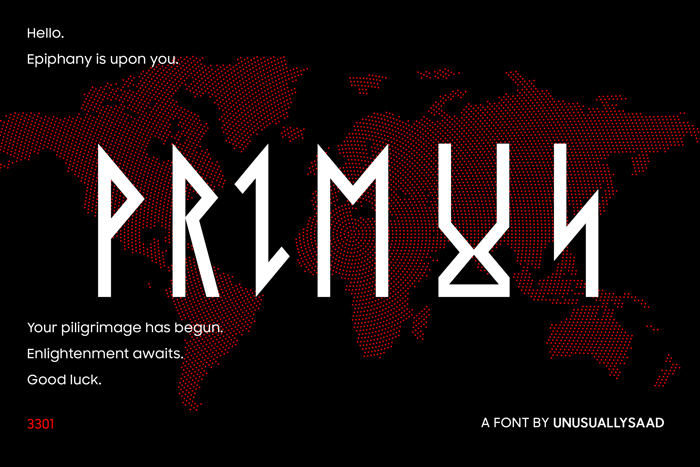
Primus Font
Primus is a font inspired from a nearly 60 page book of runes called the Liber Primus, discovered at the end of the 2014 version of the Cicada 3301 puzzle which remains largely undeciphered to this day.
Primus means first and Liber means book.